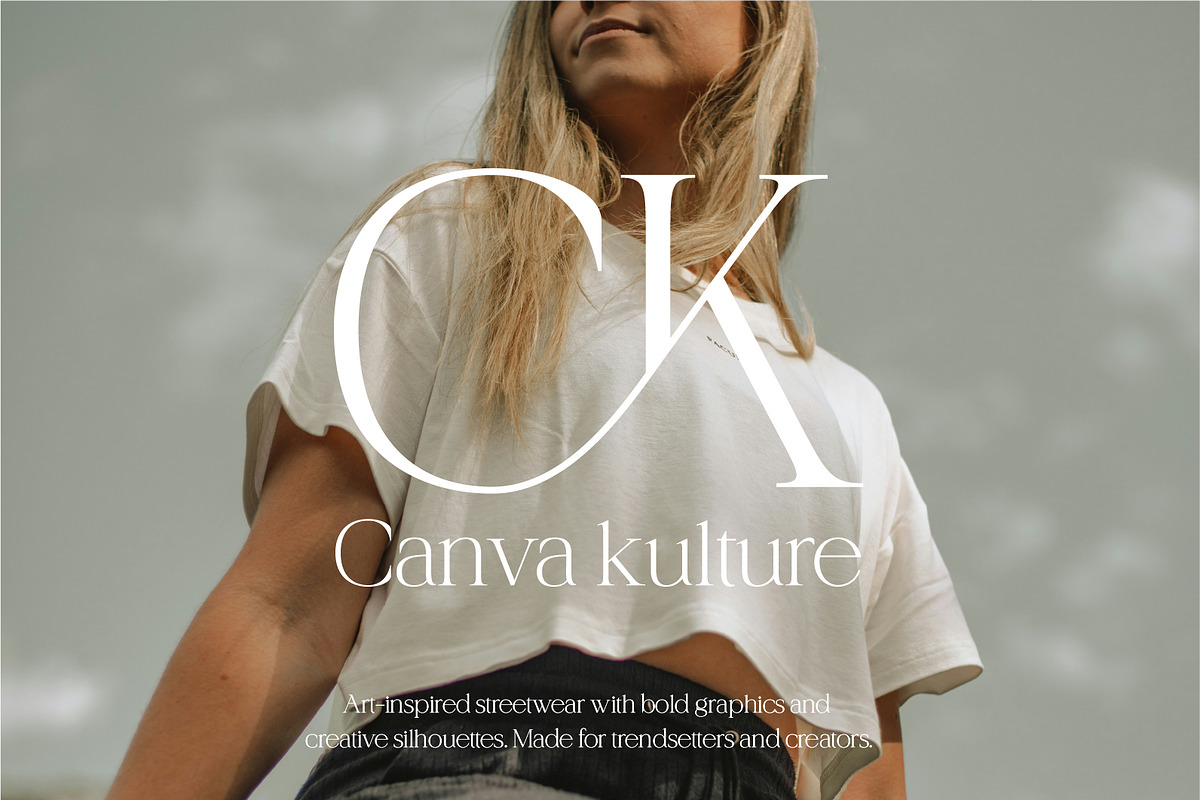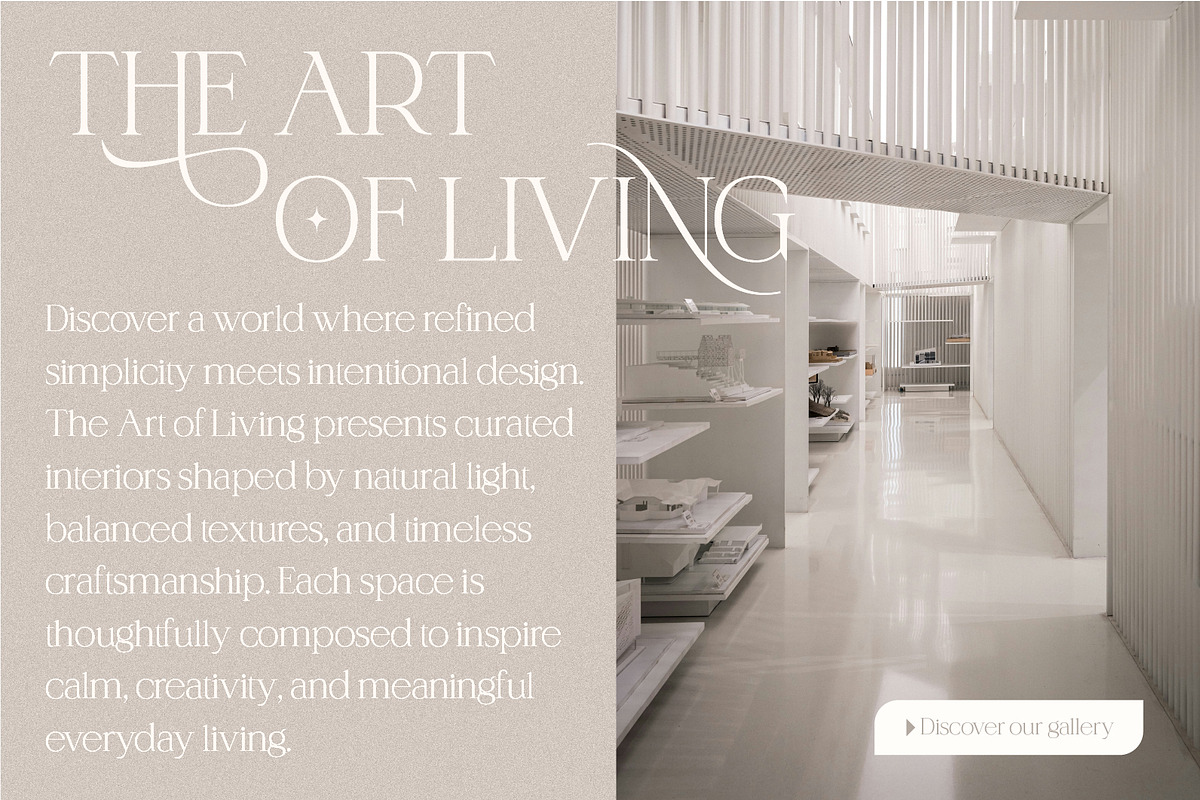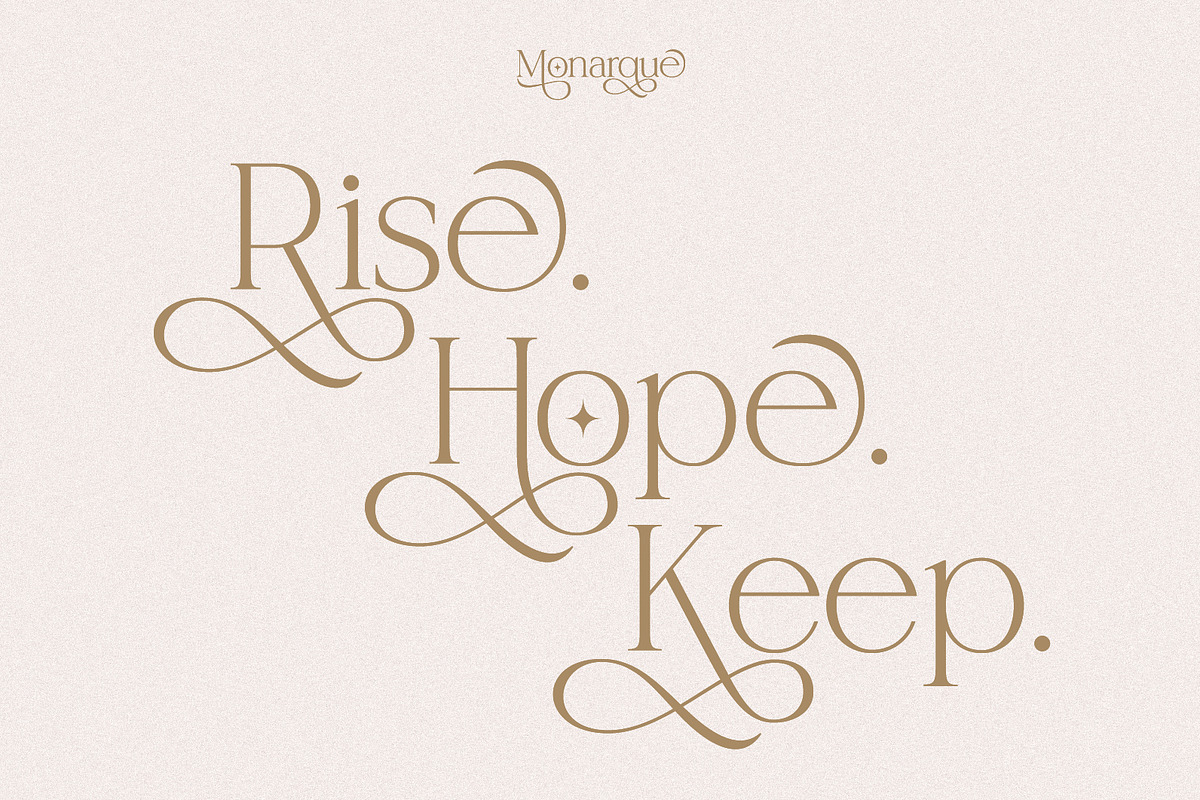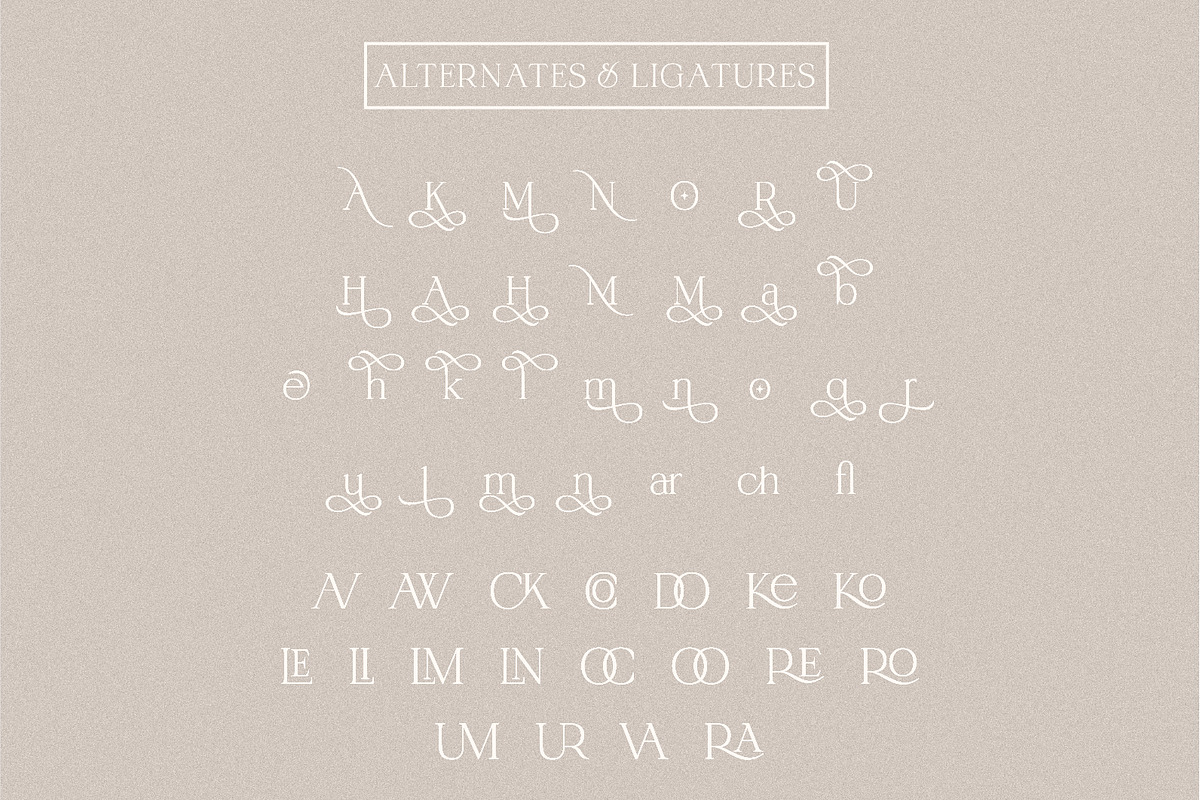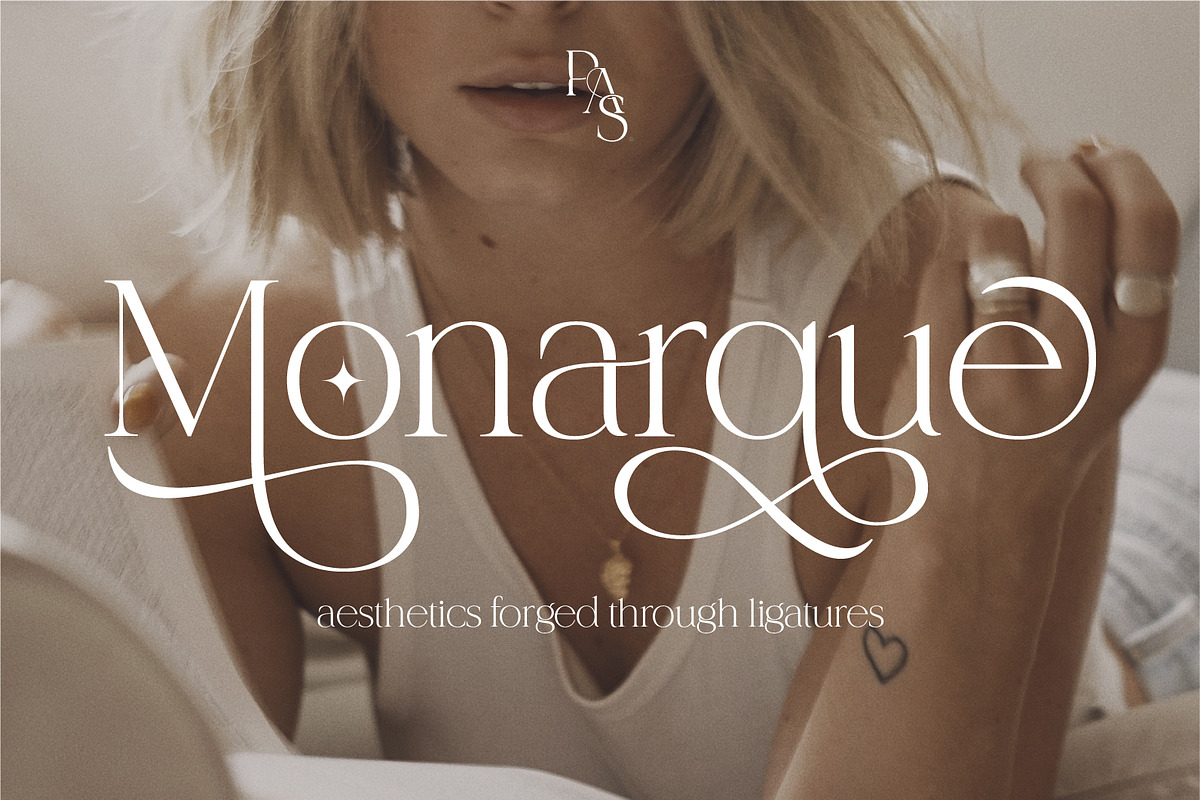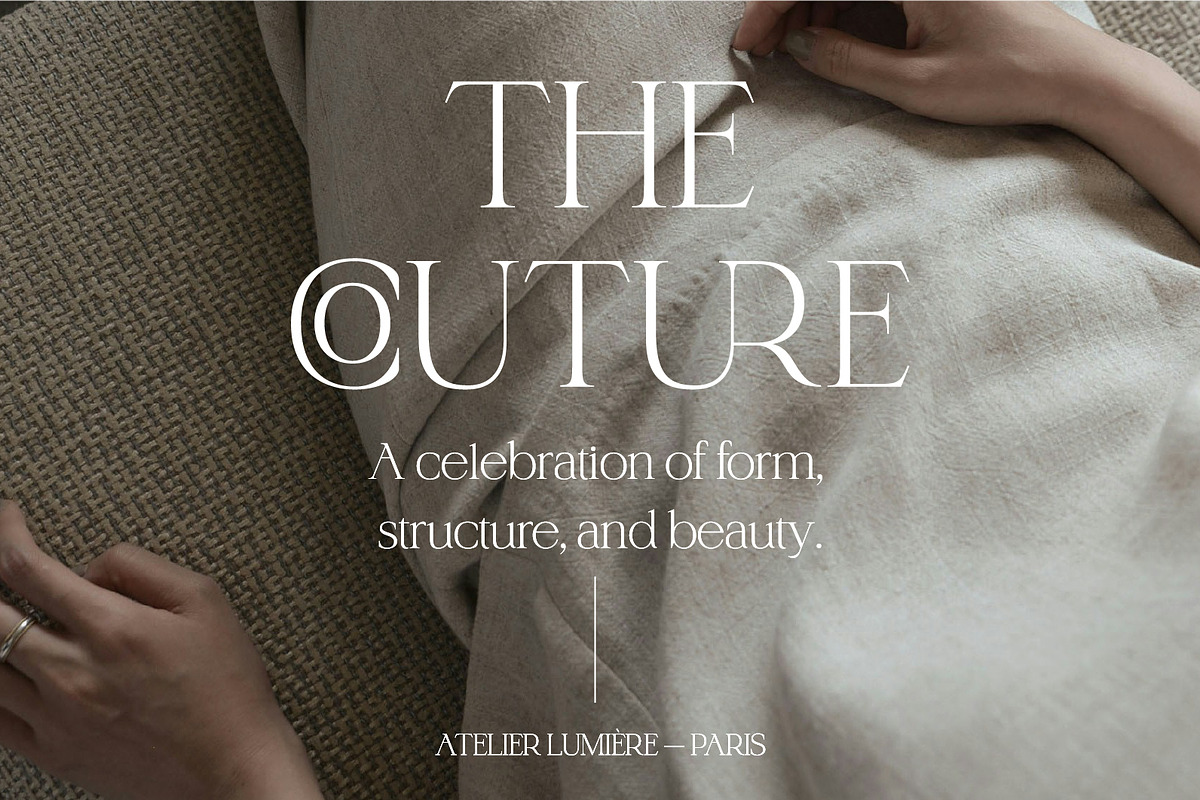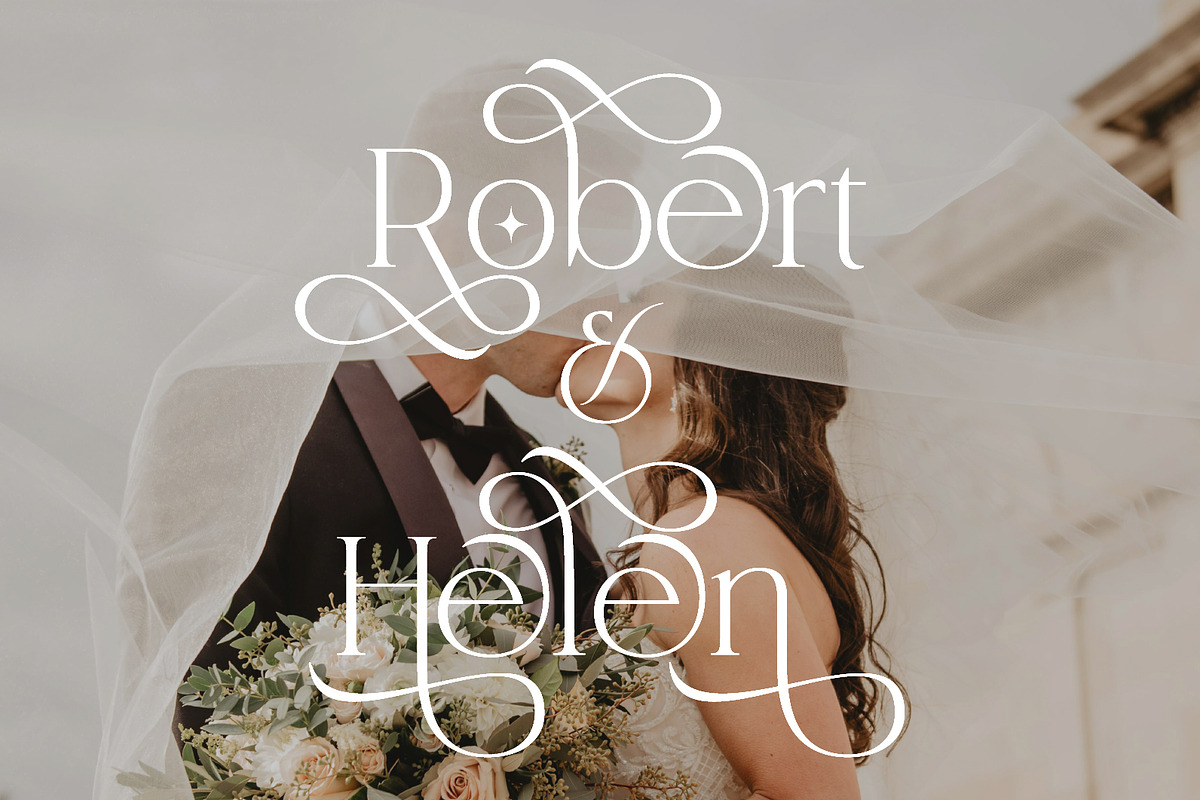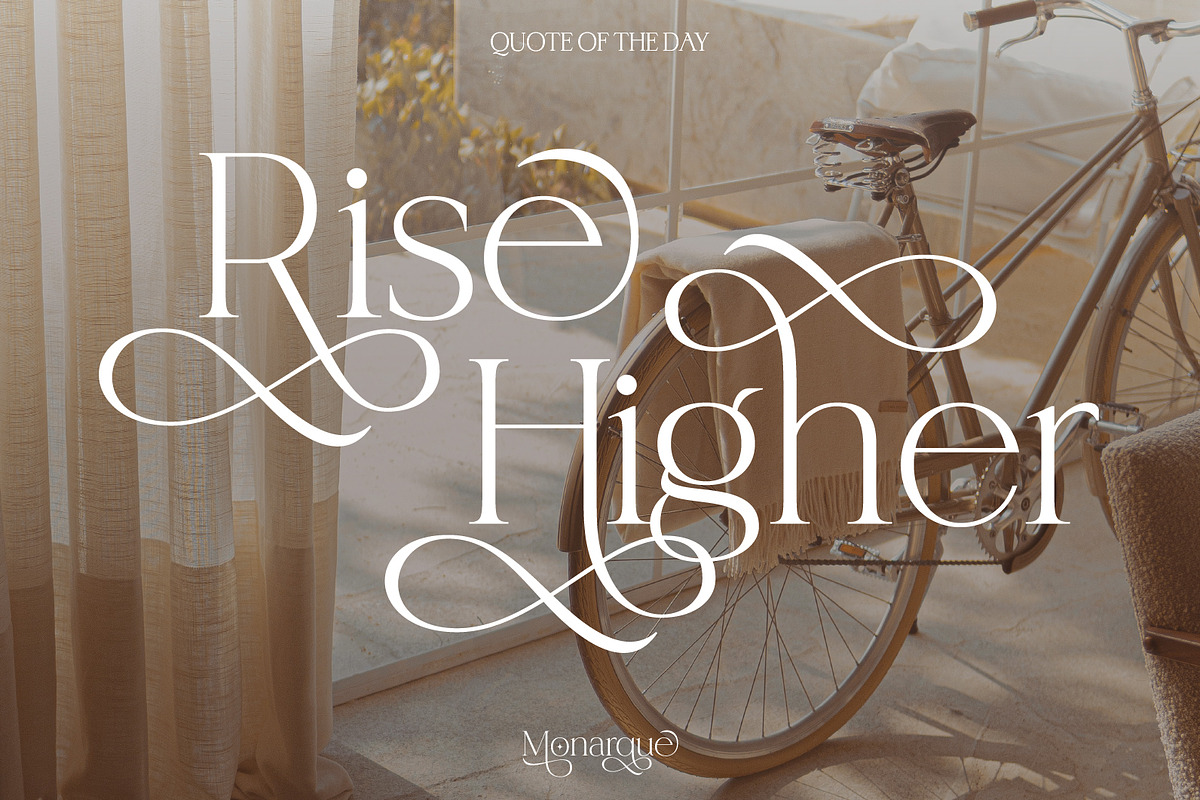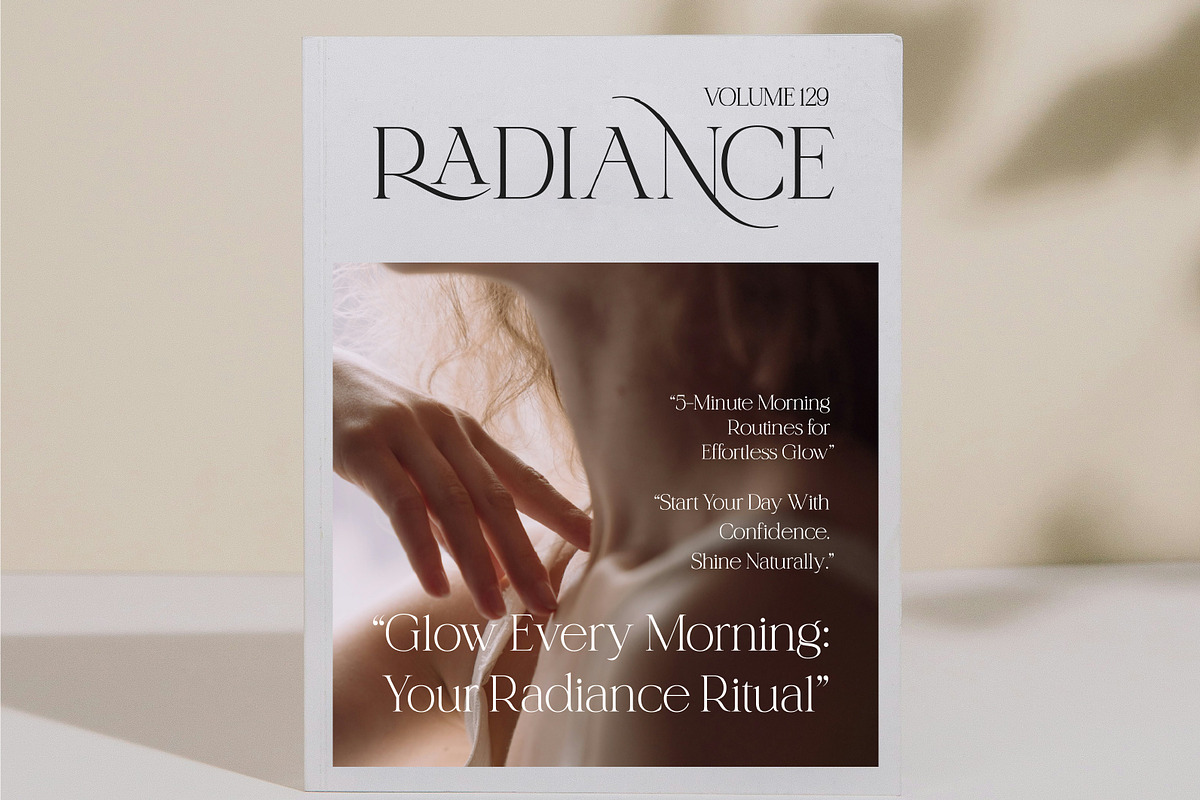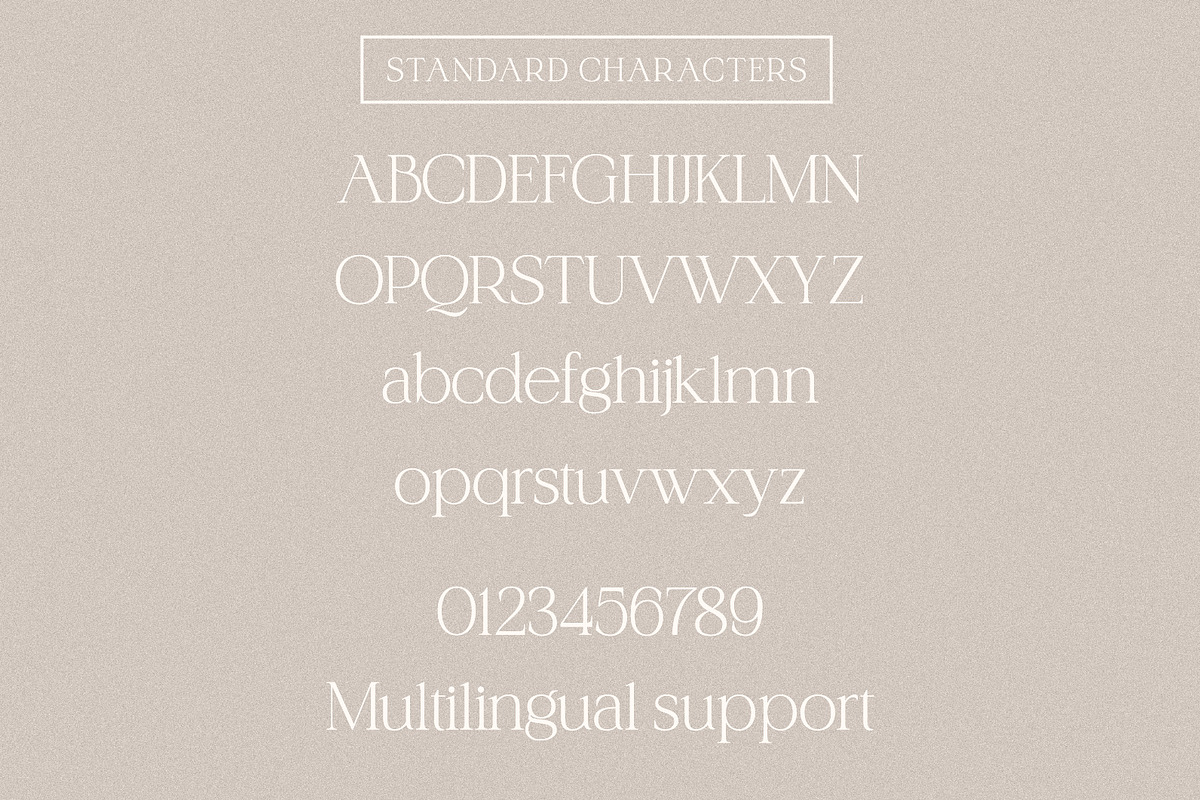
Monarque Serif
Monarque — The Regal Serif Display Font for Exceptional Design
Command attention from the very first glance with Monarque, a luxury serif display font crafted to elevate your brand into a realm of prestige and sophistication. Designed for creators who refuse to blend in, Monarque delivers the perfect balance of elegance, power, and refinement—instantly transforming any project into a high-end visual statement. If you want your branding to feel premium, memorable, and undeniably distinguished, Monarque was made for you.
- Multilingual support: Basic Latin, Western European, Central European, South Eastern European, South American, and Oceanian languages.
- PUA-encoded stylistic alternates and ligatures.
- Ideal for logos, headlines, editorial design, packaging, invitations, and all luxury visuals.
- A versatile, elegant style that stays clear, expressive, and visually striking.
Elevate Your Design
Monarque turns simple text into a symbol of sophistication. It gives every project a confident, graceful, and unforgettable presence.
Choose Monarque—and let your designs reign with true elegance.